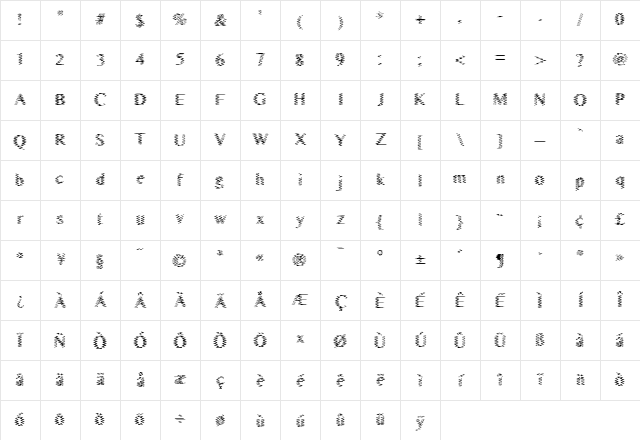
Complete Singer Sans glyph index. Displaying only characters natively supported by Singer Sans font.
Singer is a composed and adaptable typeface that performs quietly and consistently across a wide range of design contexts.